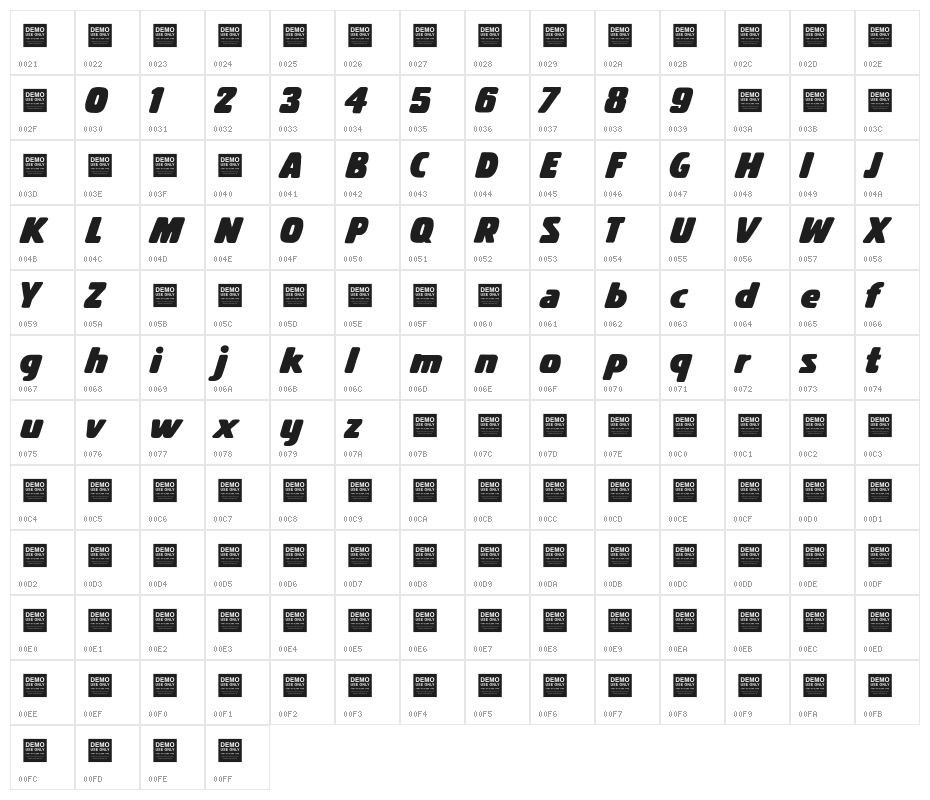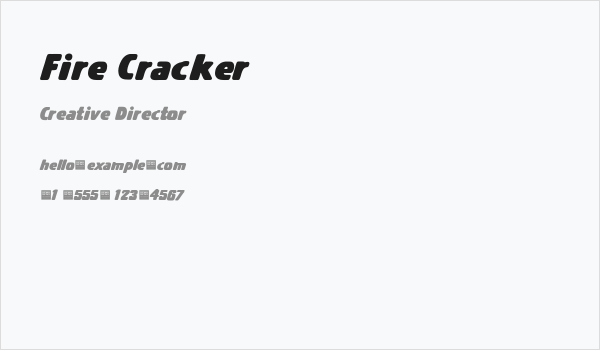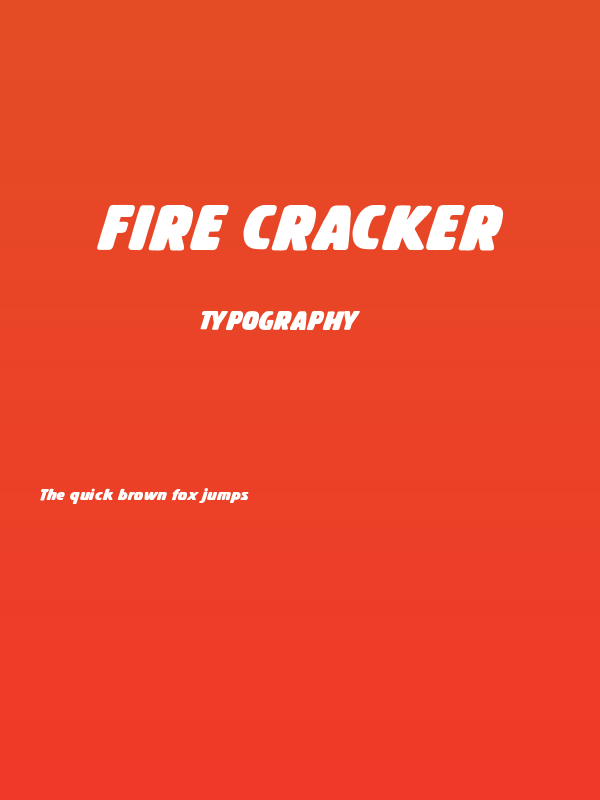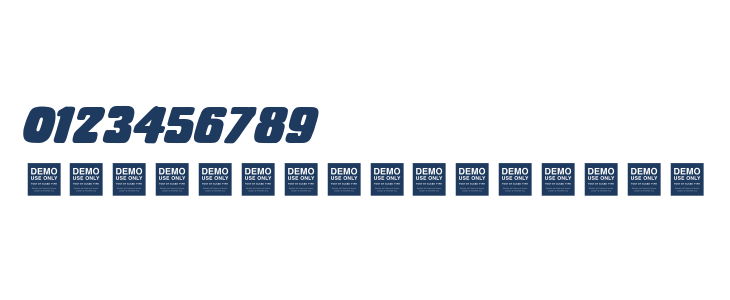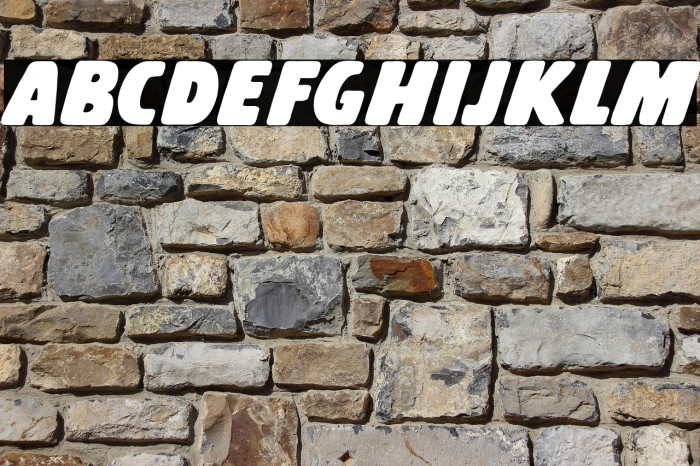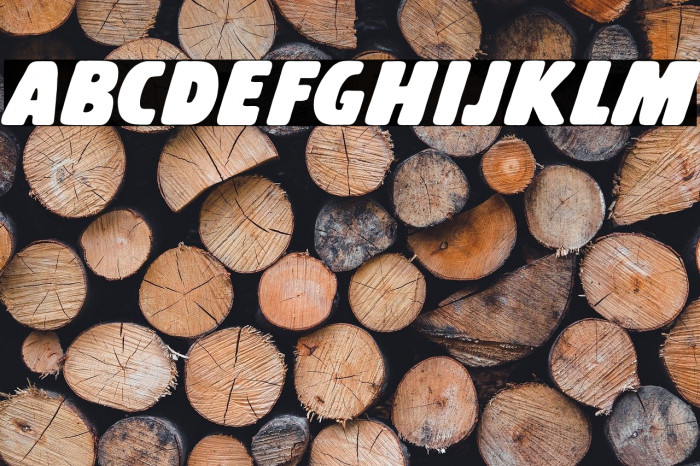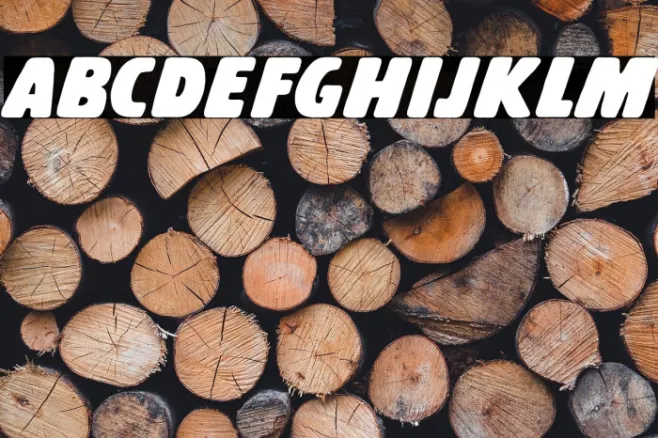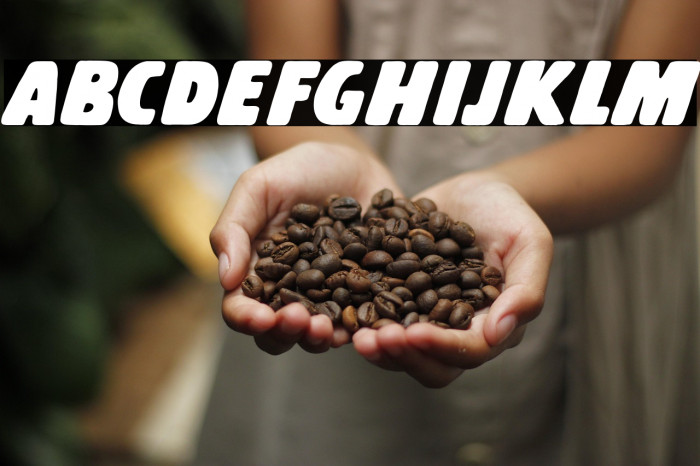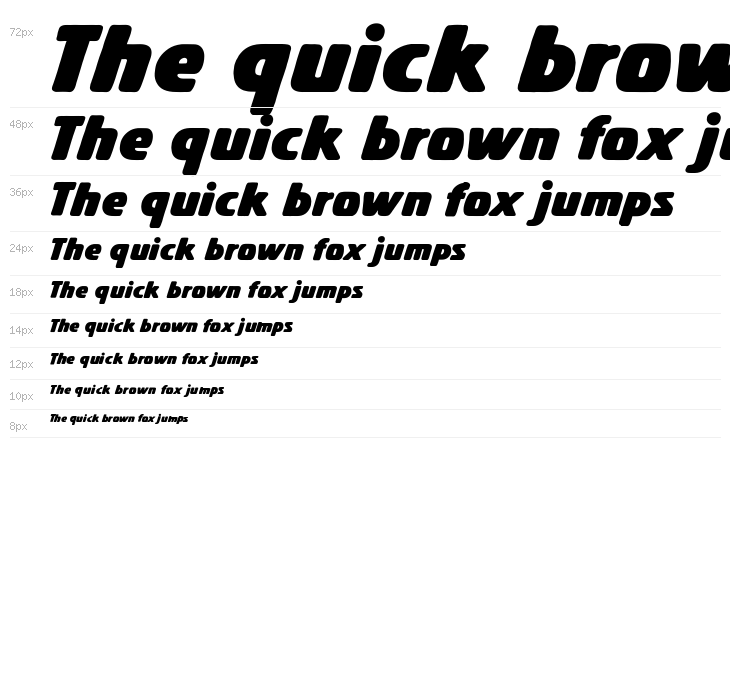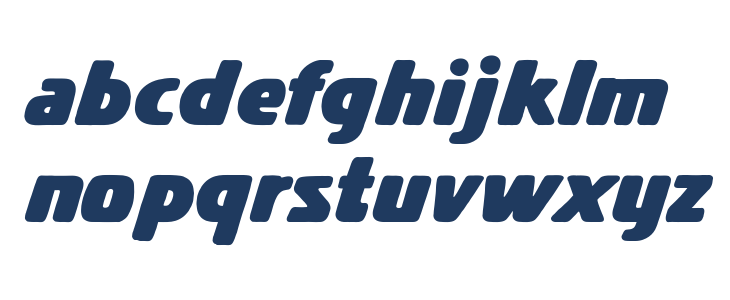
Fire Cracker Font
Fire Cracker Description
This bold and dynamic font features thick, rounded letters with a strong presence. The characters are slightly slanted, giving a sense of movement and energy. The uppercase and lowercase letters maintain a consistent style, with smooth curves and a uniform thickness that enhances readability. The numbers follow the same design principles, ensuring cohesion across all characters. The font's playful yet assertive style makes it suitable for attention-grabbing designs.
| Proposed Projects | Ideal for branding, posters, headlines, and advertising materials that require a bold and energetic look. |